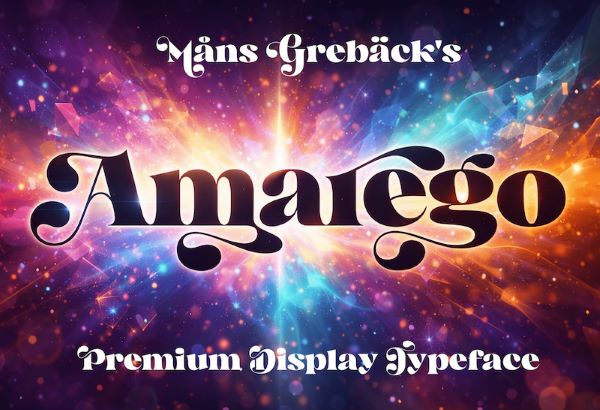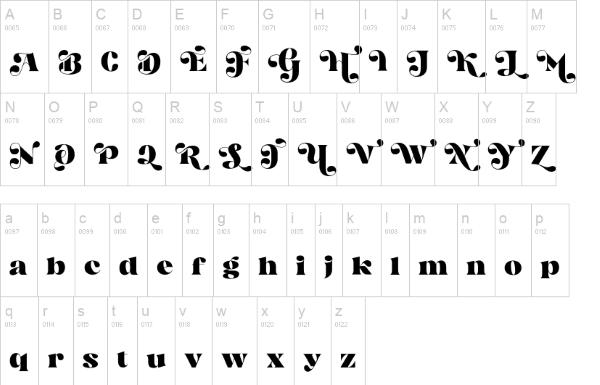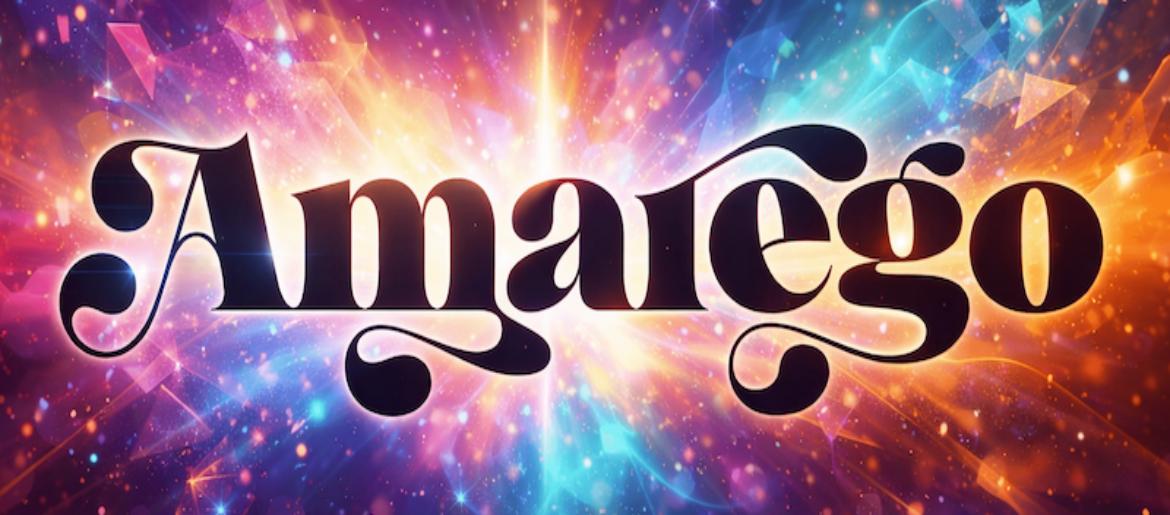
Amarego Font
Amarego Font is a decorative display typeface with a confident, flowing presence and subtle dramatic flair. Its bold, rounded letterforms feature sweeping curves and expressive terminals, creating a lively rhythm. Inspired by vintage signage and ornamental lettering, Amarego maintains a modern balance, making it ideal for logos, headlines, posters, and artistic branding designs.
➤ Style: Retro